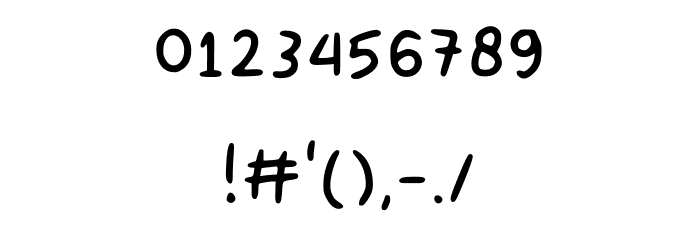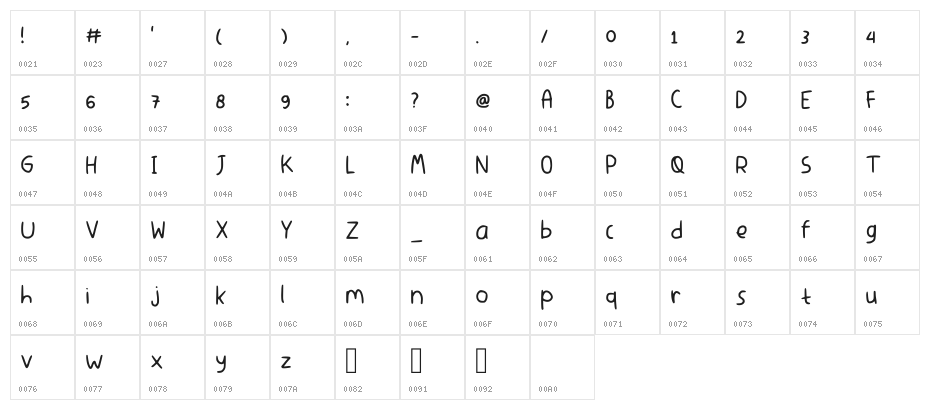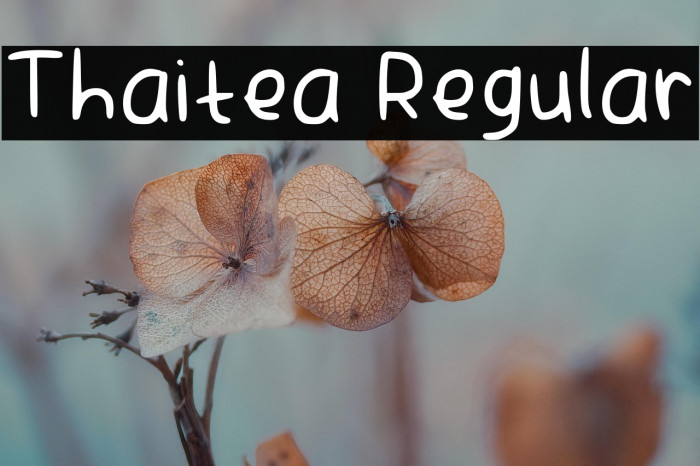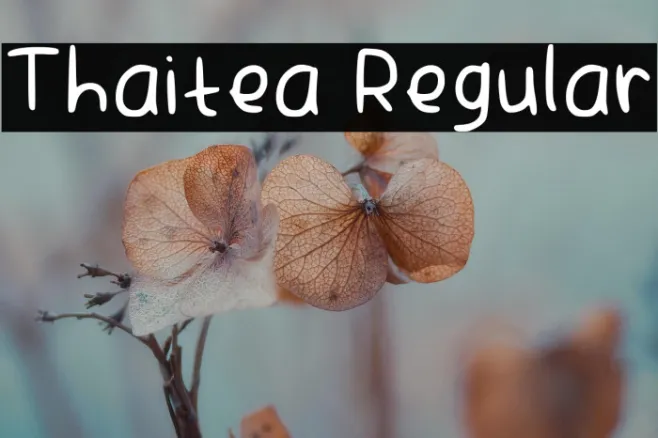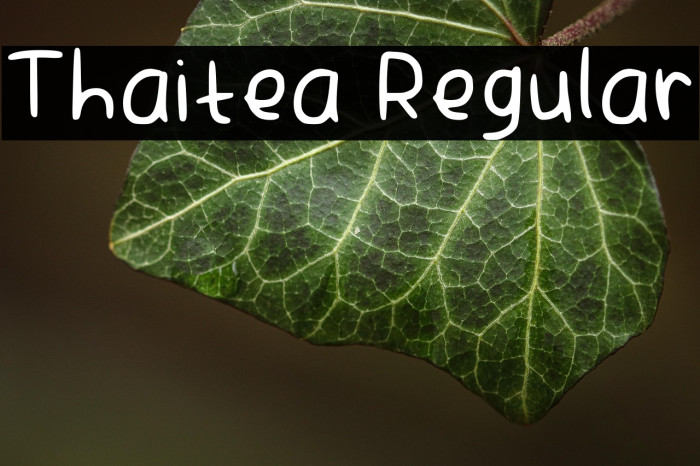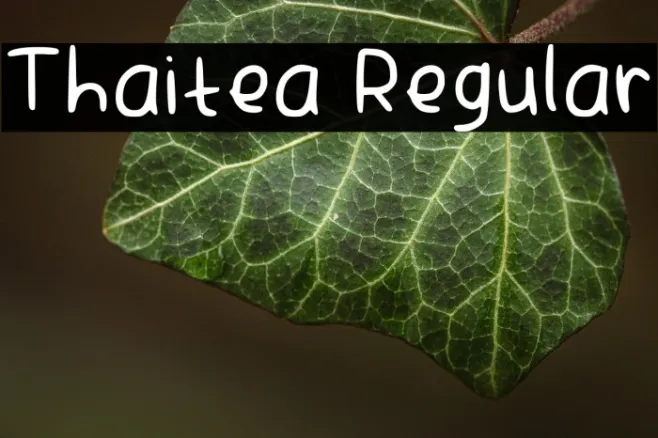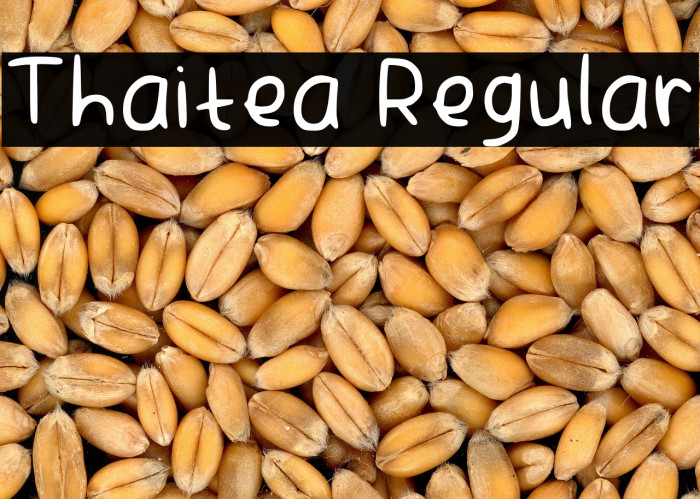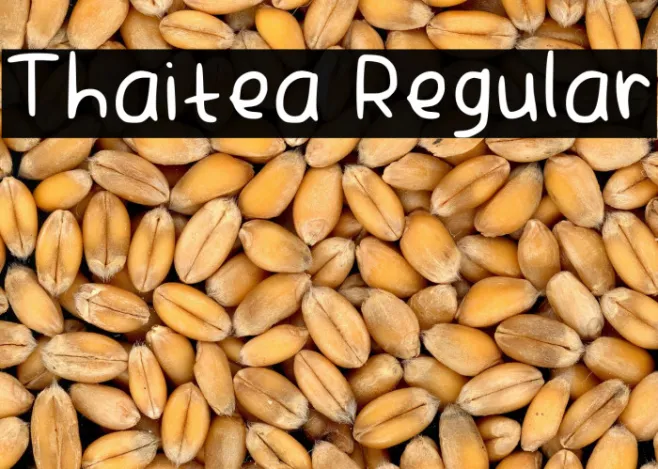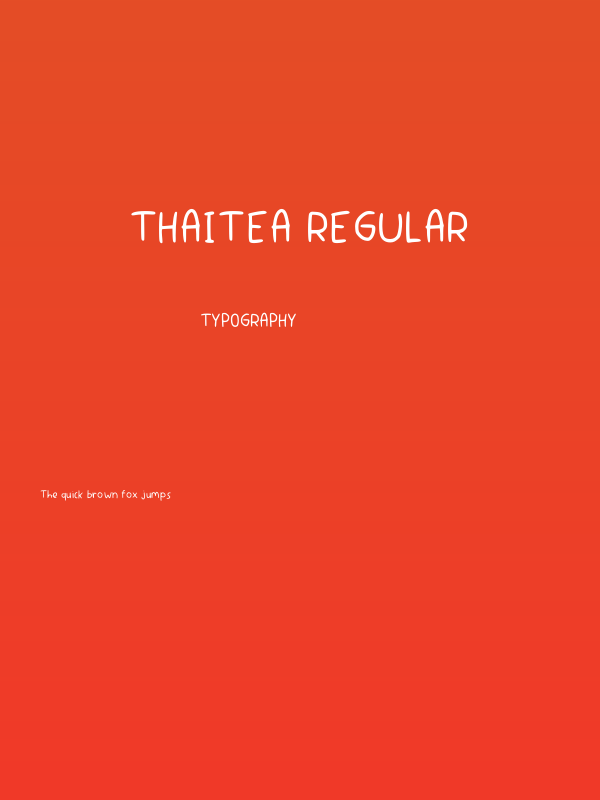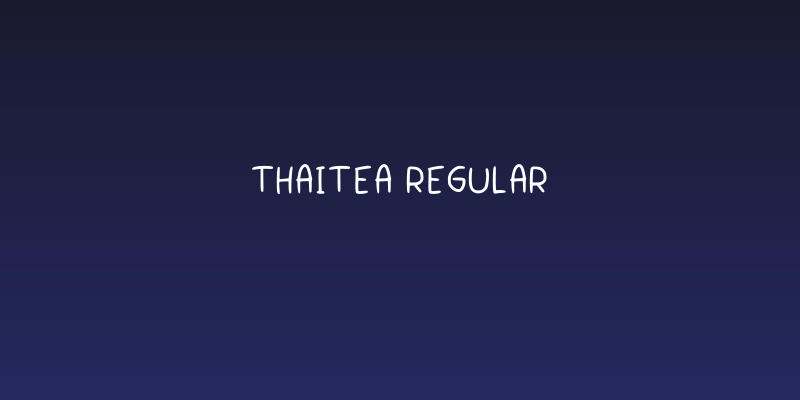
Thaitea Regular Font
Thaitea Regular Description
This font features a playful and casual handwritten style, characterized by its rounded and slightly irregular letterforms. The strokes are smooth and consistent, giving it a friendly and approachable appearance. The uppercase and lowercase letters maintain a uniform height, contributing to a cohesive look. The numerals and special characters are designed to match the overall style, ensuring versatility across different uses. Its informal nature makes it suitable for projects that require a personal touch or a relaxed vibe.
| Proposed Projects | Ideal for greeting cards, children's books, casual branding, and social media graphics. |